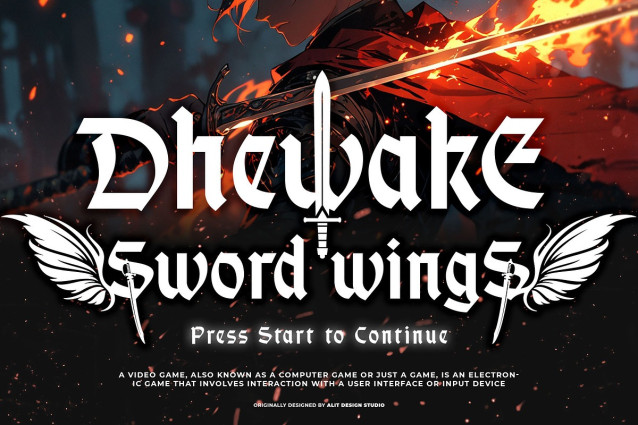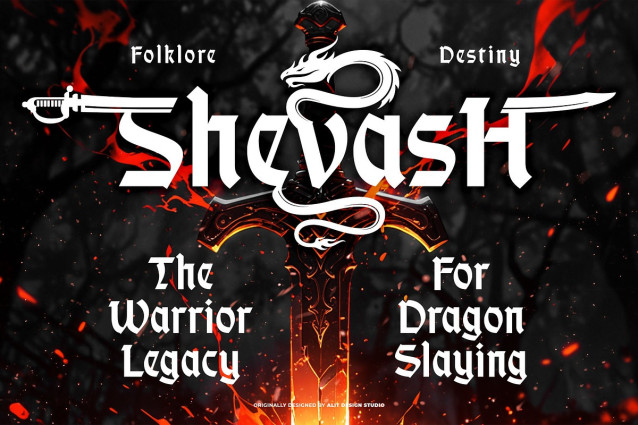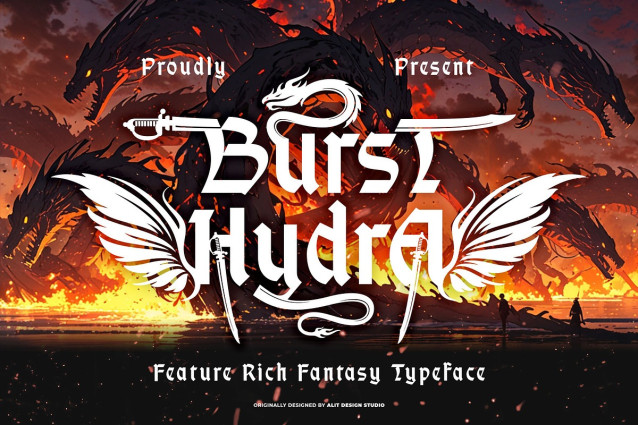
Burst Hydra Font
Burst Hydra Font, a bold and heroic typeface inspired by myth and legend. Designed with an epic fantasy theme in mind, Brust Hydra blends semi-blackletter styling with serif elegance, delivering a commanding presence perfect for titles, logos, posters, game UI, and fantasy-themed branding.
Burst Hydra draws inspiration from the valor of Greek heroes and the fearsome strength of mythical beasts like the Hydra. Each letterform is forged with sharp edges and refined curves, evoking the armor, swords, and wings of warriors and legendary creatures. Decorative elements—such as sabers, flame motifs, and dragon insignias—enhance its visual storytelling, making it a centerpiece for any design that demands strength and sophistication.